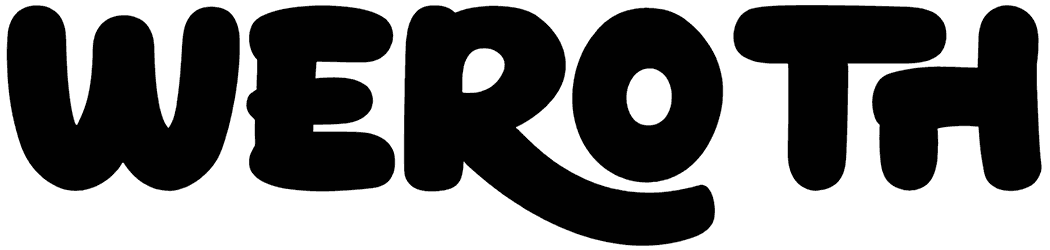
Weroth Font
Although finding a suitable and cohesive cartoon font for designing exclusive content for children like educational brochures, storybook illustrations, stickers, applications, or video game posters would be a little bit of juggling, a magical masterpiece such as Weroth can be your superior game-changer.